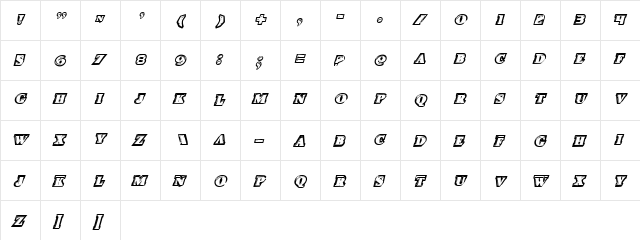
Icebox Art Staggered Italic Italic
Design Context for Icebox Art Staggered Italic Typeface
Icebox Art Staggered Italic is a composed and adaptable typeface that performs quietly and consistently across a wide range of design contexts. The slanted form adds forward momentum and visual energy.
Pro Tip: Try Icebox Art Staggered Italic for annotation and caption copy alongside an upright companion — the contrast in angle creates a dynamic but ordered typographic system.